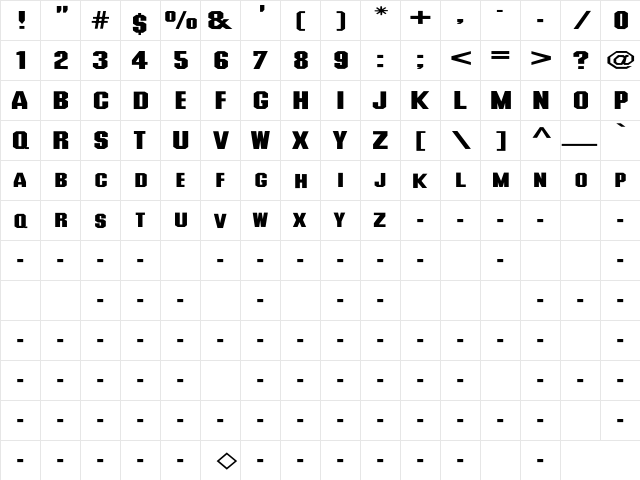
Rsdeusex Ex Regular
Design Context for Rsdeusex Ex Typeface
Rsdeusex Ex offers clean, dependable letterforms without strong stylistic allegiance, making it a practical choice for designers who need flexibility.